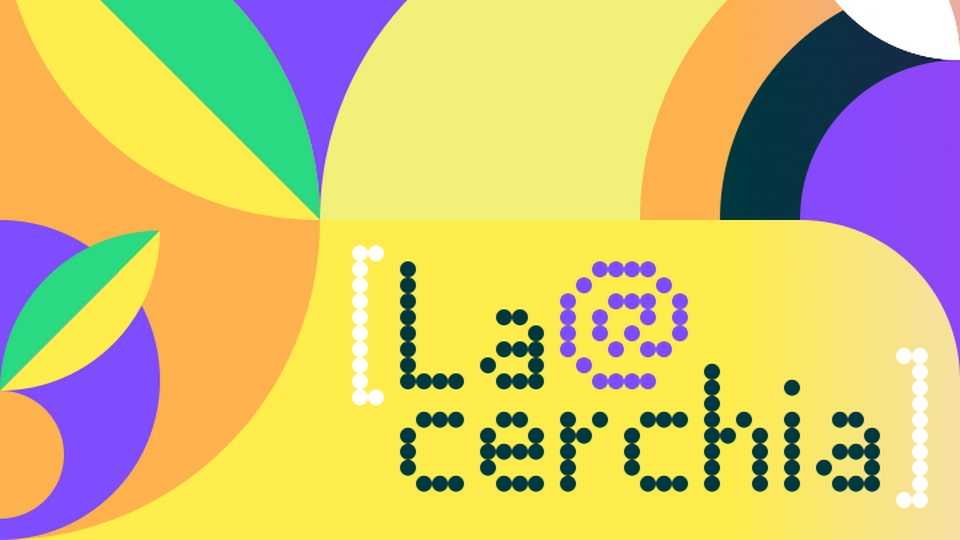
Download La Cerchia font, a striking display typeface that replicates the distinctive dot-matrix style found in electronic displays with its grid-based letterforms and rounded dots.
Designer: Posto Carattere